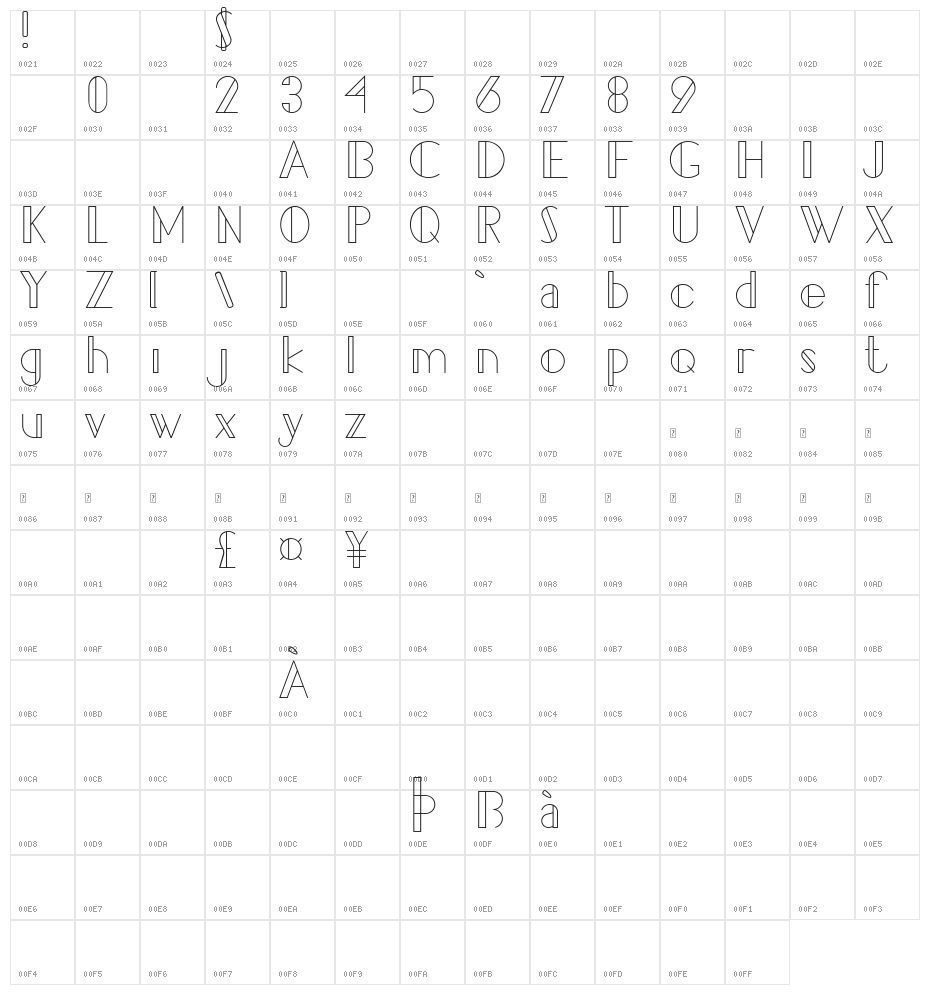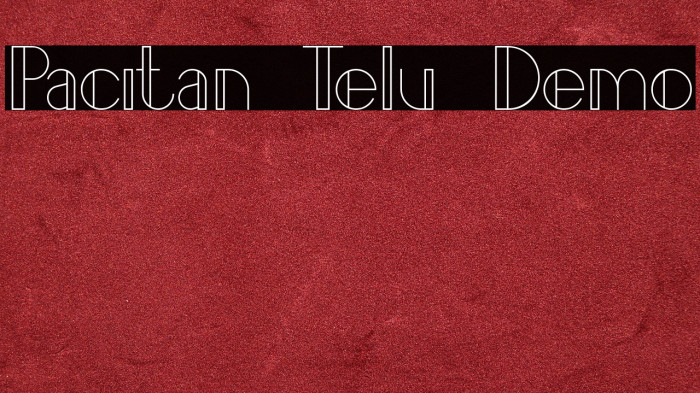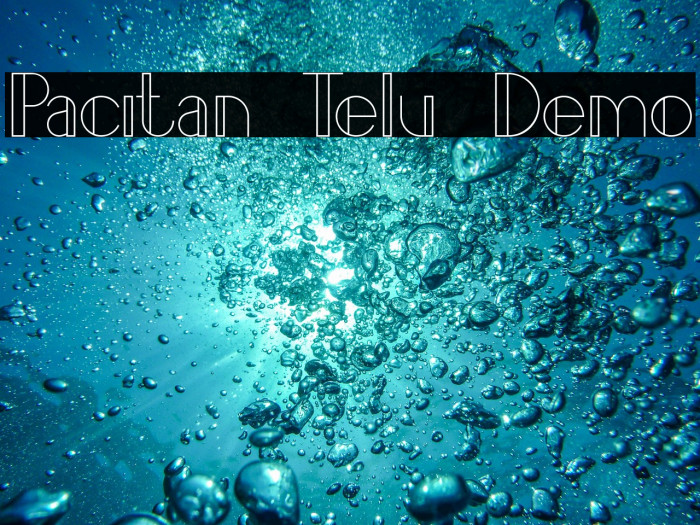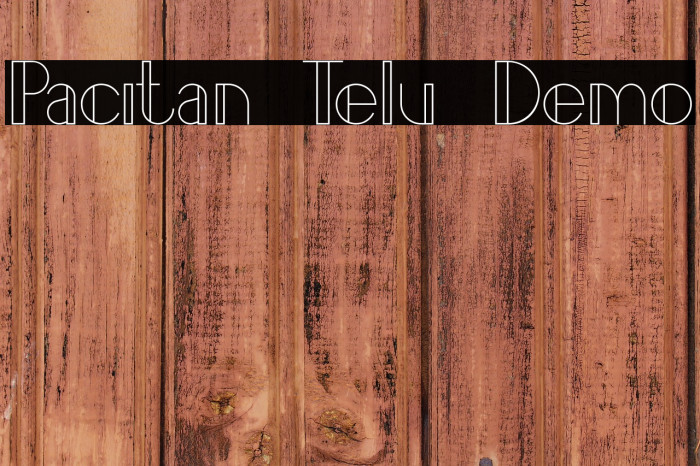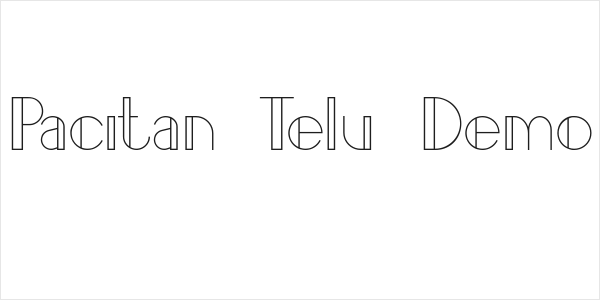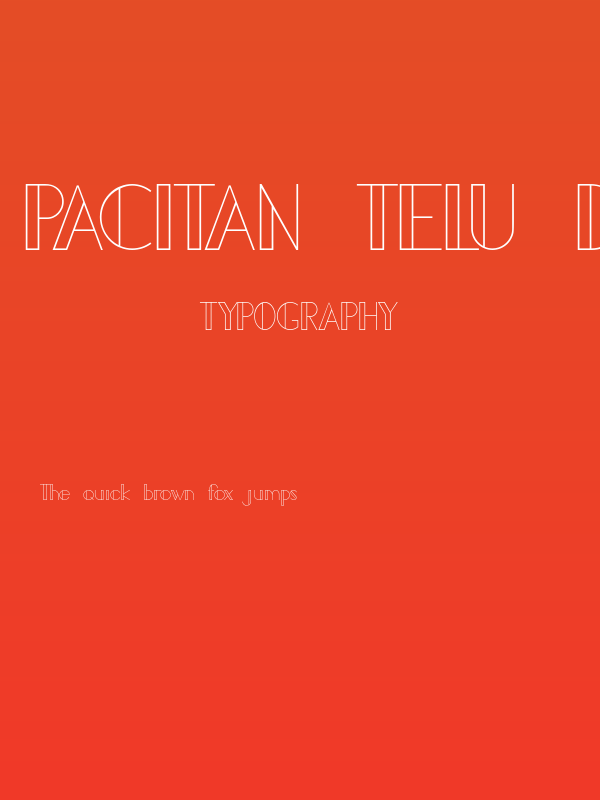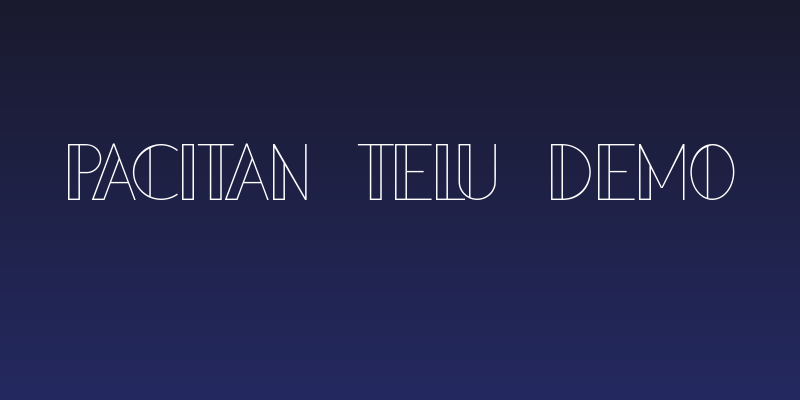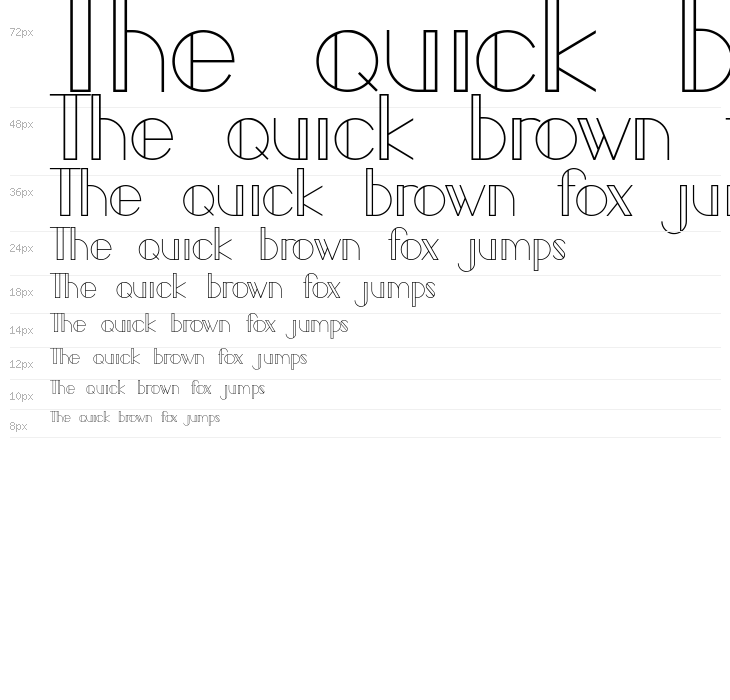
Pacitan Telu Demo Font
Pacitan Telu Demo Description
This font features a modern and elegant design with thin, elongated letterforms that create a sense of sophistication and style. The uppercase letters are tall and narrow, with clean lines and minimal embellishments, giving them a sleek appearance. The lowercase letters maintain a similar aesthetic, with a consistent stroke width that adds to the uniformity and balance of the font. The numerals are distinct and easy to read, following the same thin and elongated style. Special characters are designed to complement the overall look, making this font versatile for various design needs.
| Proposed Projects | Ideal for luxury branding, fashion magazines, high-end product packaging, and modern web design. |